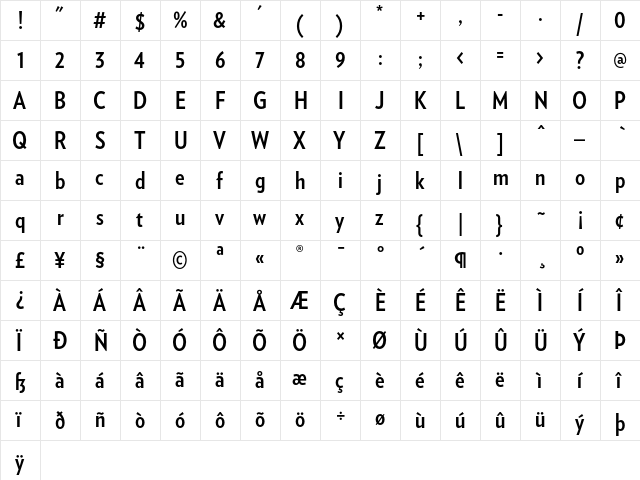
Verlag Condensed Bold
| Foundry | Hoefler & Frere-Jones |
| Designer | Hoefler & Frere-Jones |
Design Context for Verlag Condensed Typeface
Verlag Condensed offers clean, dependable letterforms without strong stylistic allegiance, making it a practical choice for designers who need flexibility. Its bold stroke weight gives it real presence on the page. Its narrow stance lets it pack a punch even in space-constrained designs.
Pro Tip: Use Verlag Condensed in both headline and body roles to test its range before committing to a single application.